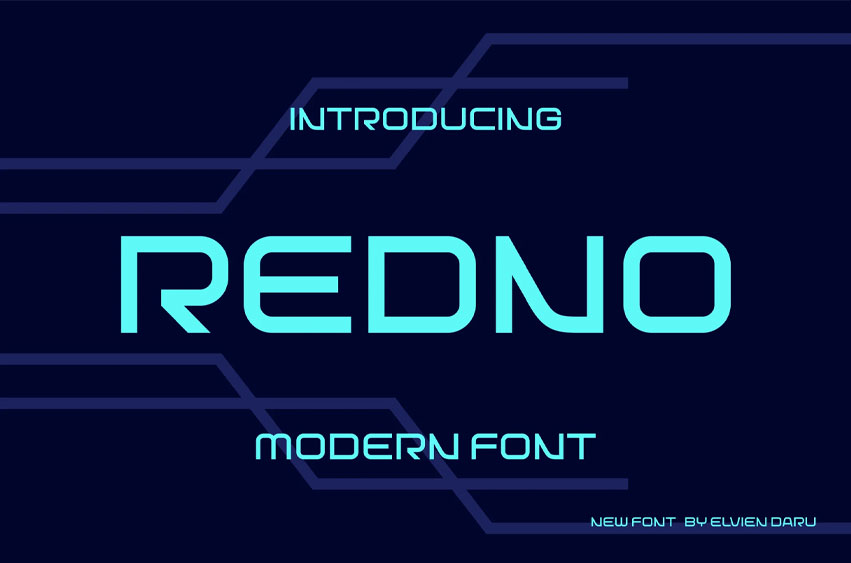
Redno Font
Redno Font Modern Font Perfectly suited for print/screen. It’s perfect for Branding, name cards, posters, logos, magazines, covers, banners, t-shirts, headers, or even large-scale artwork.